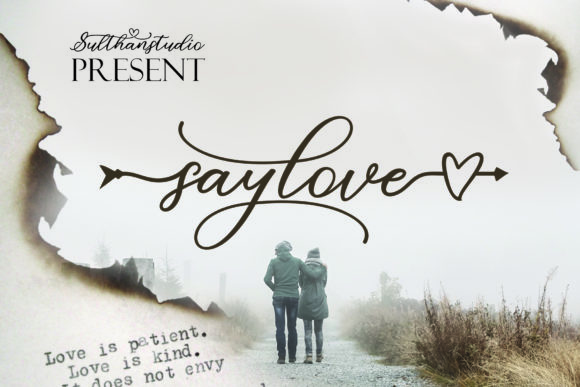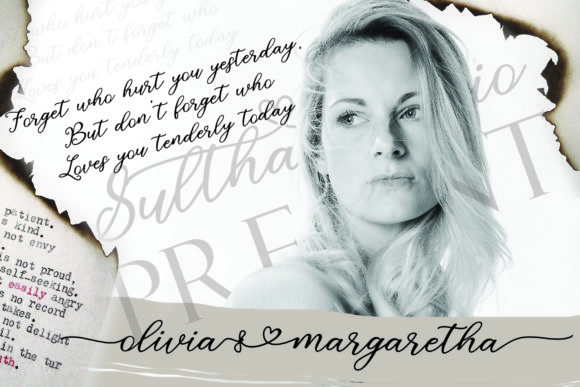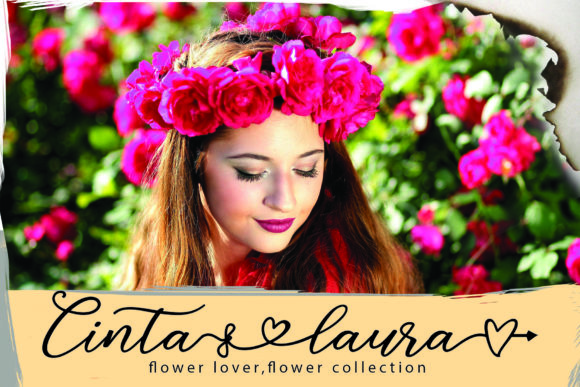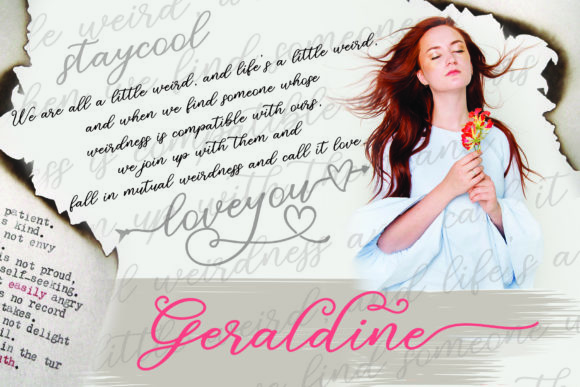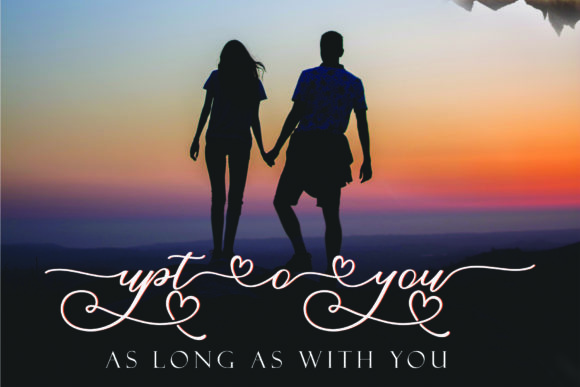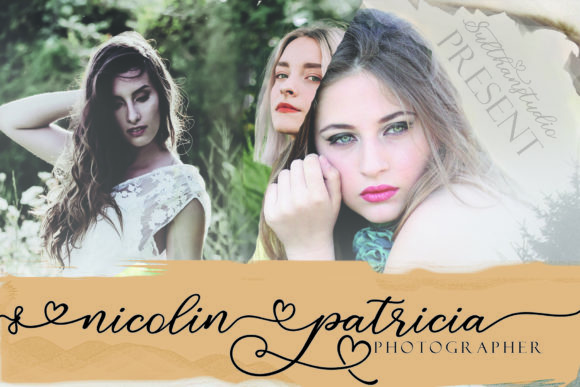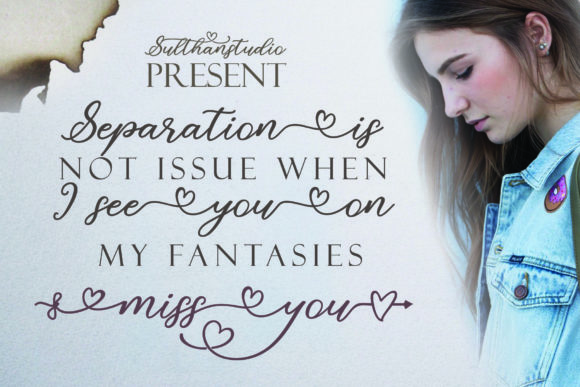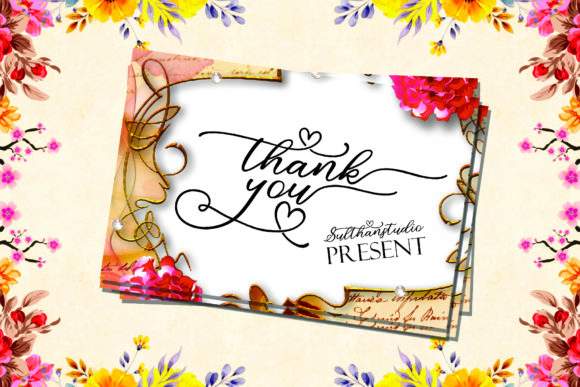
Say Love Font
About Say Love Font
Say Love is a sweet, lovely and charming script font that’s perfect for adding a romantic spark to your next craft idea!